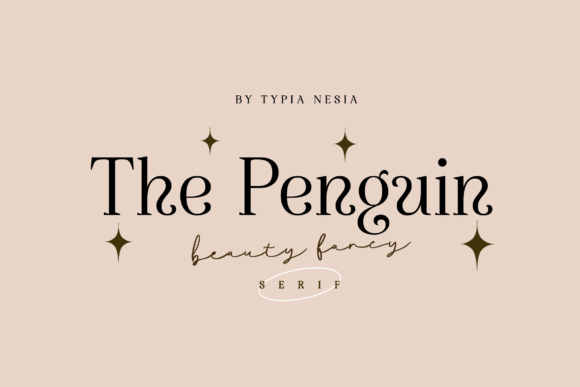
Dive into a world of timeless elegance and sophistication with The Penguin Font, a masterpiece crafted by the renowned Typia Nesia. Inspired by classic serif fonts, The Penguin exudes an aura of luxury and grace that will elevate your creative projects to new heights.
Unleash your inner artist and let your imagination soar with this versatile font. The Penguin's delicate strokes and sweeping curves add a touch of refinement to logos, branding, editorial designs, and fashion promotions. Its timeless appeal captivates audiences, leaving an unforgettable impression on every project.
Step into a realm of creativity with The Penguin Font. With its wide range of applications, this font breathes life into blog graphics, art quotes, and home décor. Its enchanting presence transforms ordinary words into captivating expressions, making your designs stand out from the crowd.
Indulge in the artistic freedom that The Penguin Font provides. Its seamless adaptability to various design styles makes it a perfect choice for stationery, card invitations, and book covers. The font's delicate touch adds a personal touch, whether you're crafting heartfelt messages or sharing creative ideas.
Embark on a creative journey with The Penguin Font and witness the transformation of your designs. Its timeless beauty and elegant charm will elevate your projects, leaving a lasting impression on everyone who encounters them. Embrace the allure of The Penguin Font and unlock a world of creative possibilities.